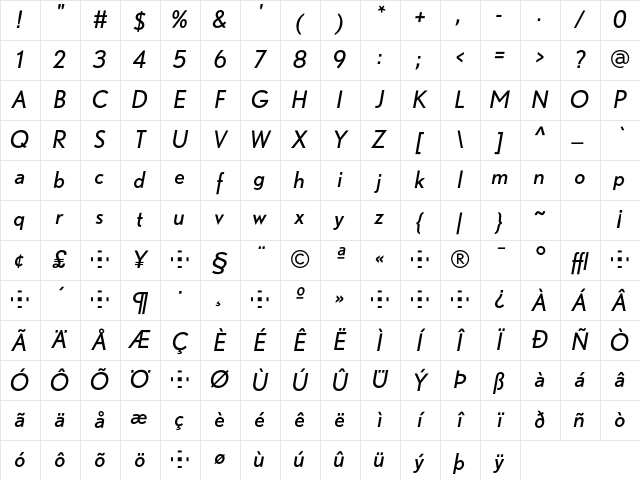
Nobel RegularItalic
Style: RegularItalic
Design Context for Nobel
Nobel is a composed and adaptable typeface that performs quietly and consistently across a wide range of design contexts. The slanted form adds forward momentum and visual energy.
Pro Tip: Use Nobel for emphasis, pull quotes, and subheadings where its slanted energy can add rhythm to the layout.